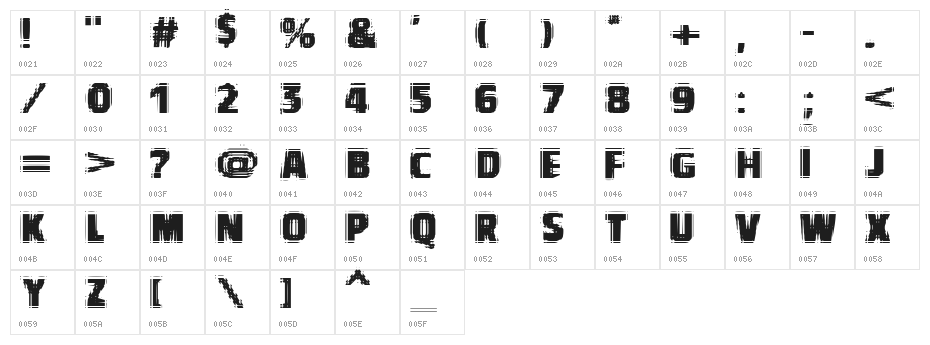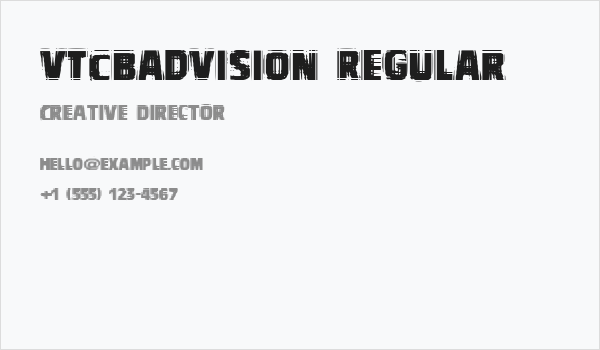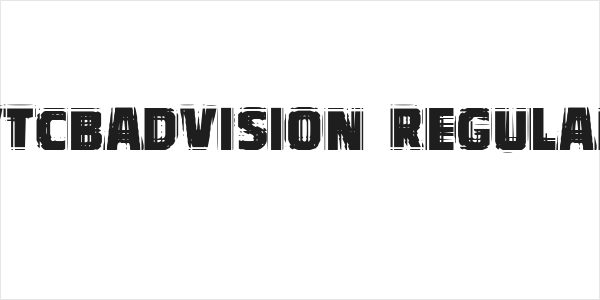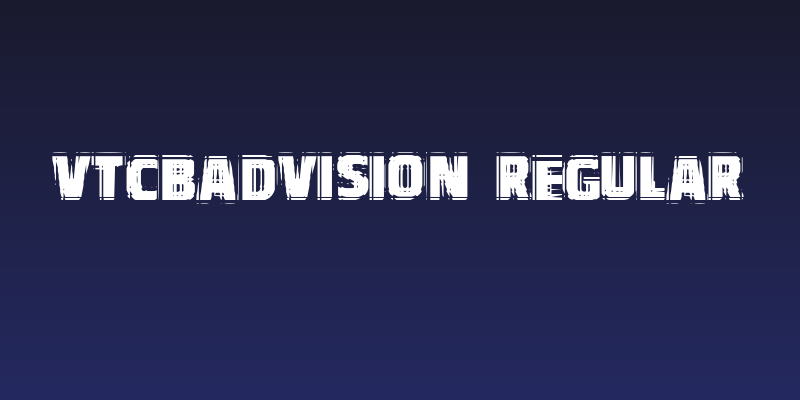
VTCBadVision Regular Font
VTCBadVision Regular Description
This font features a bold and distressed style, characterized by its rough, grunge-like texture. The letters are blocky and robust, with a heavy emphasis on a worn, eroded appearance. The uppercase and lowercase letters maintain a consistent width, creating a uniform look despite the chaotic texture. Numbers and special characters follow the same distressed pattern, ensuring a cohesive design throughout. This font's unique aesthetic makes it stand out, offering a raw and edgy feel that is both modern and rebellious.
| Overall Style | Modern, Grunge |
| Proposed Projects | Ideal for music album covers, edgy posters, urban-themed branding, and streetwear designs. |